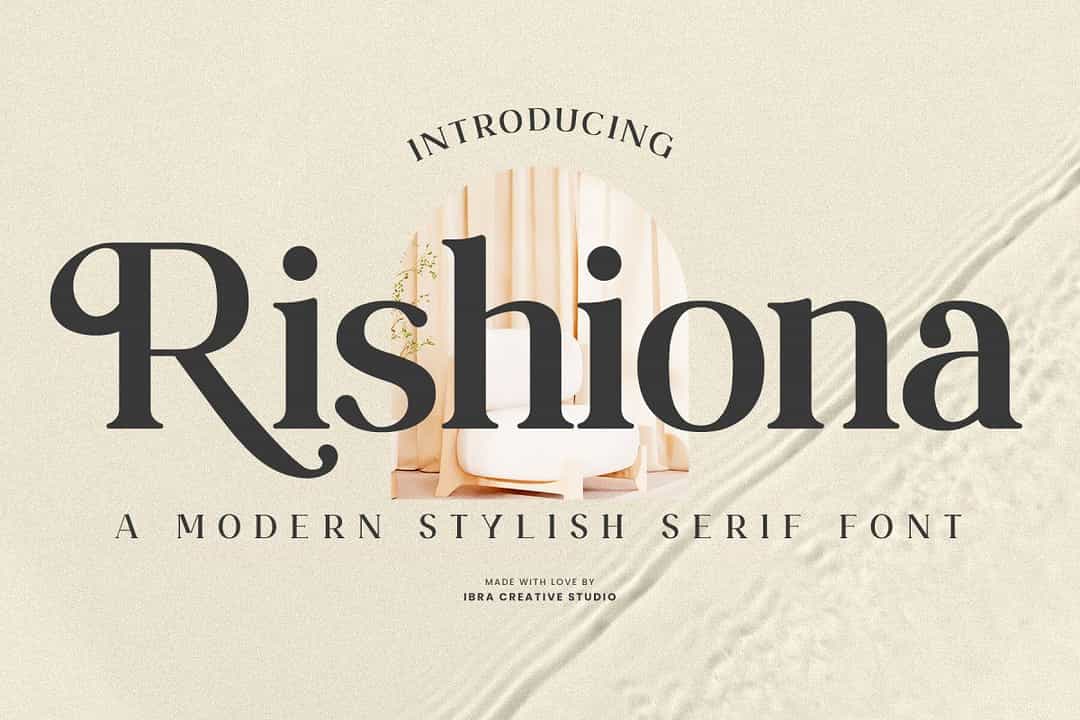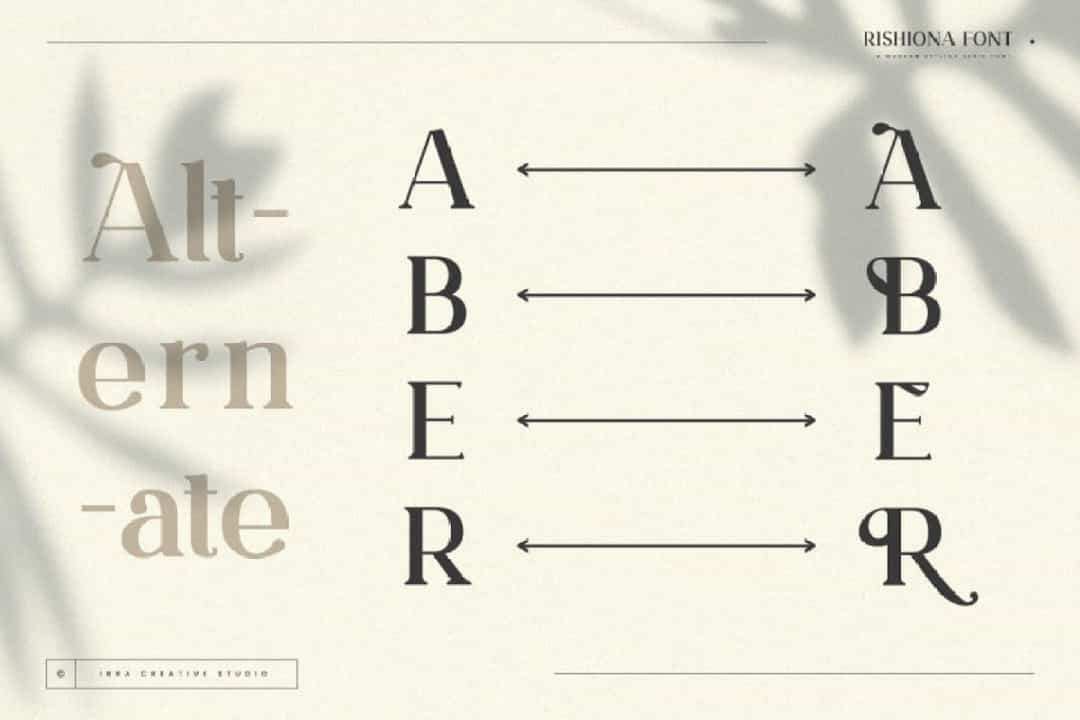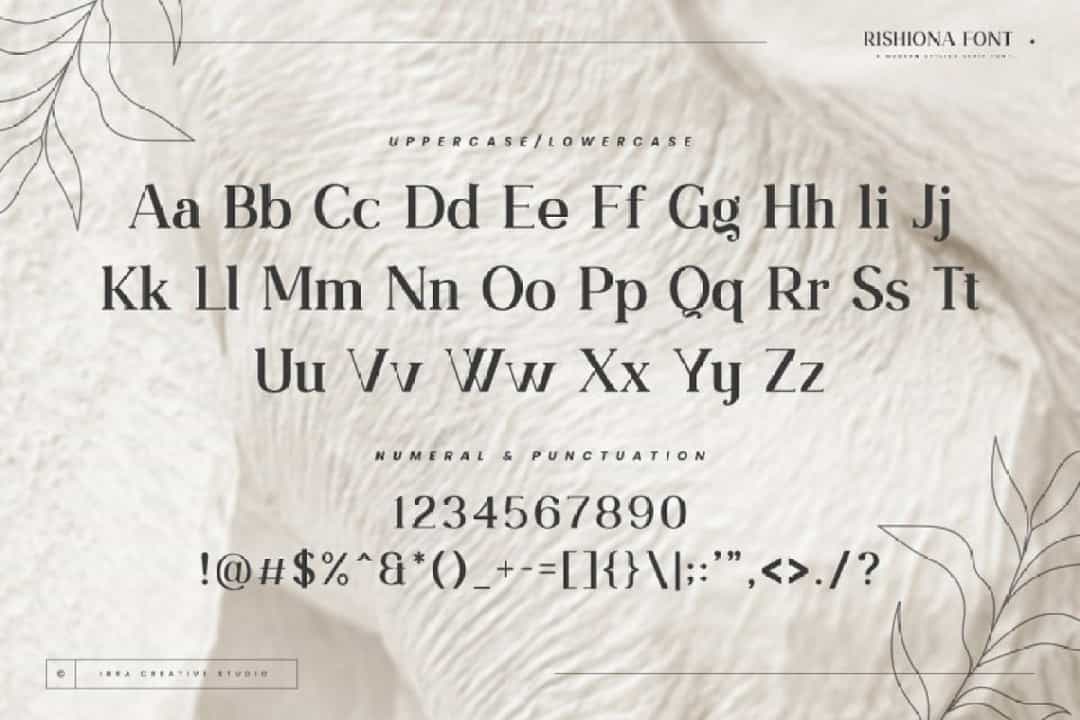
Rishiona is an exquisite contemporary and chic serif typeface, captivating users with its blend of modern designs and timeless elegance. Each exquisite letterform exudes sophistication; boasting sleek lines and proportions which seamlessly transition between past and future designs.